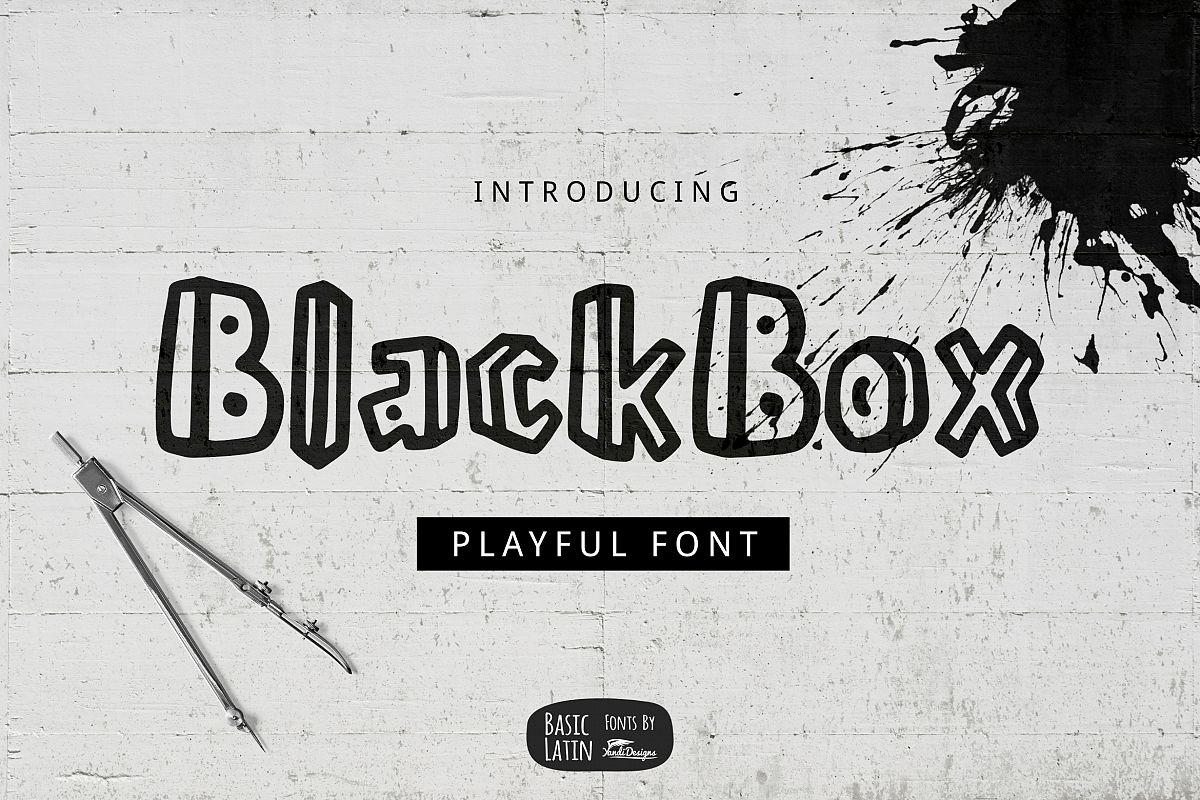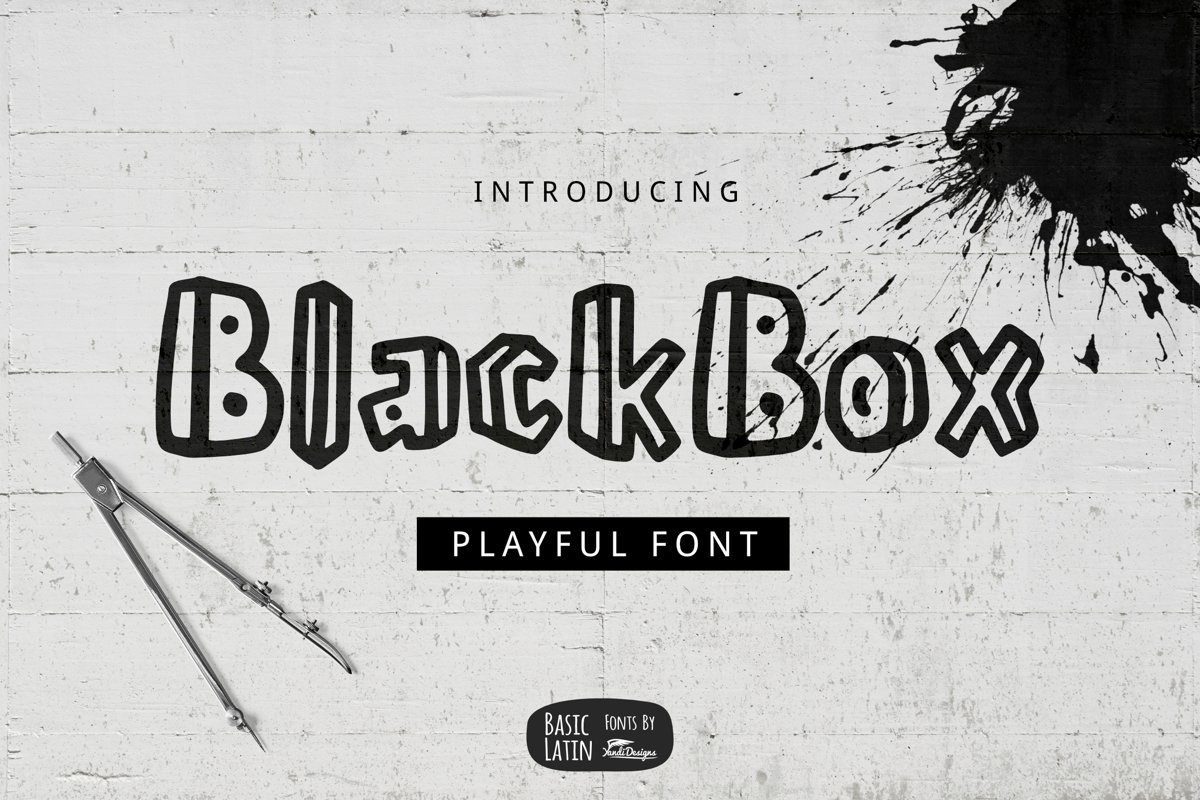
BlackBox Playful Font
BlackBox Font
BlackBox font is simple playful cute multipurpose handmade font , suitable for many project children book, quotes, logo , heading , title etc.